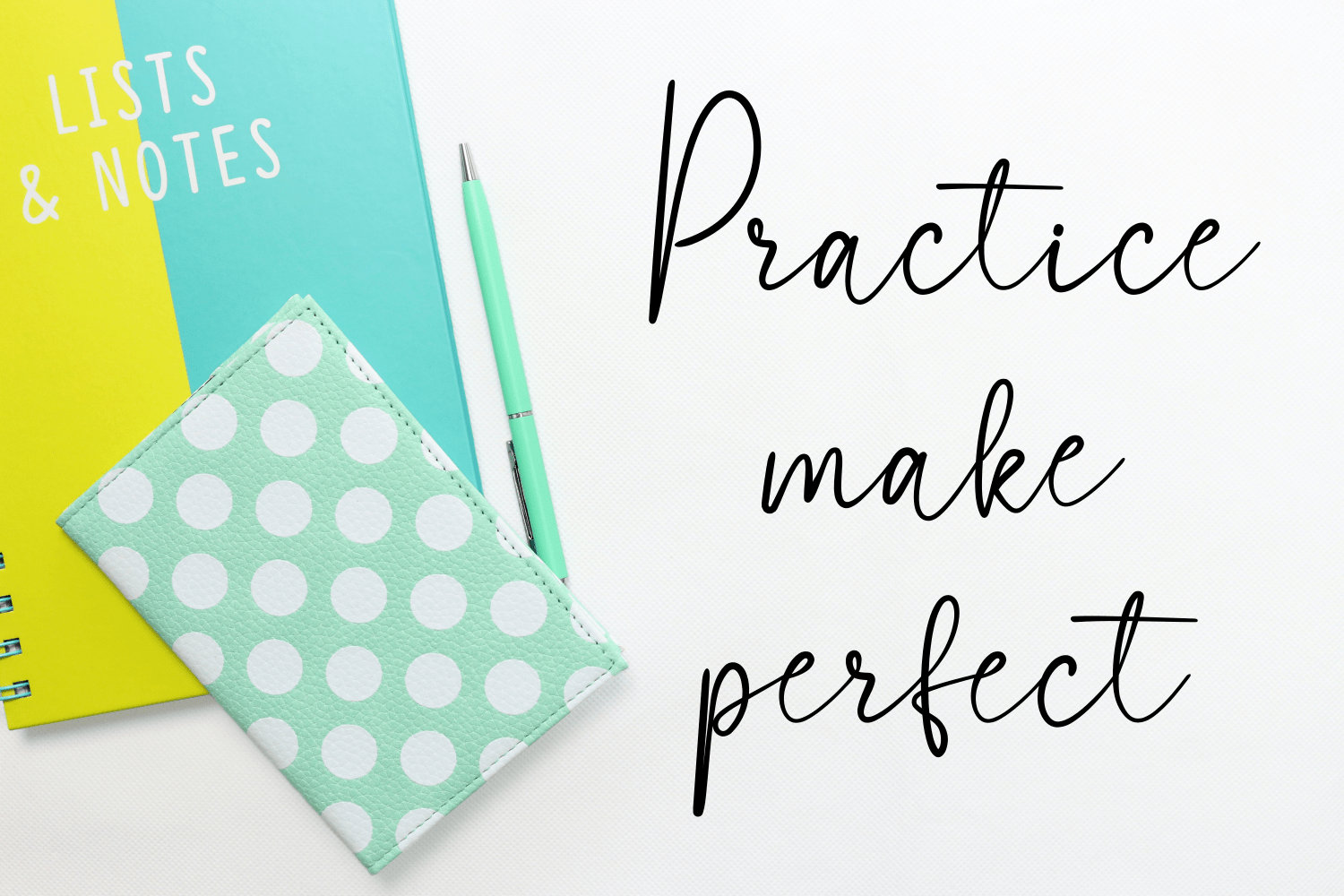
Amigho Font
Amigho Script Font is a whimsical script font with a relaxed theme, featuring a lovely style. No matter the topic, this font will be an incredible asset to your fonts’ library, as it has the potential to elevate any creation.